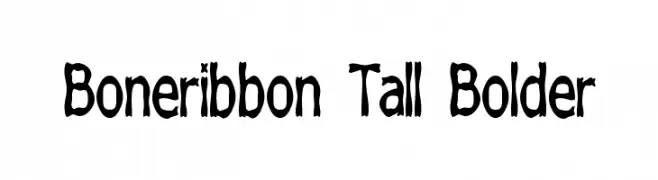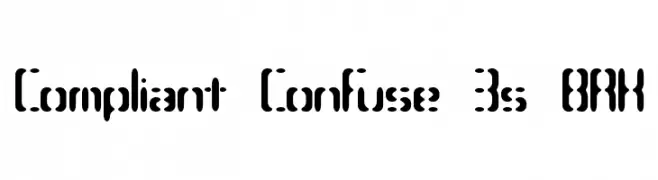
A classic serif font with bold strokes and high contrast, ideal for elegant designs.
A bold, pixelated font with a retro digital display style.
A bold, decorative font with intricate patterns and playful design.
A bold, electrifying font with jagged outlines and dynamic energy.
A tall, bold, hand-drawn font with a playful and irregular style.